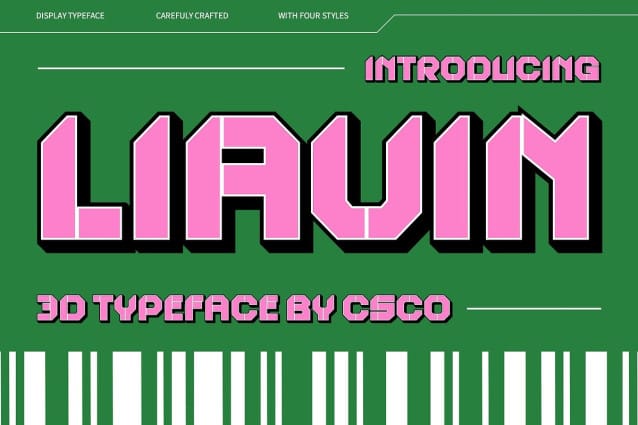
Liavin 3D Font
Liavin 3D Font is a modern display font that embodies futuristic design with its sharp lines and geometric forms. Inspired by cutting-edge technology and innovation, the font’s sleek, angular shapes evoke a sense of the future. The 3D effect adds depth and dimension, transforming each letter into a bold visual element that stands out across various mediums.
Dynamic and Impactful Visual Appeal The 3D effect not only adds dimension but also enhances the font’s bold and dynamic presence, making it highly engaging in any design. Whether used in headlines, posters, or digital media, Liavin 3D ensures a strong visual impact, capturing attention and delivering a futuristic vibe that resonates with modern audiences.
Perfect for Tech and Innovation-Focused Projects Liavin 3D is ideal for technology-related branding, futuristic digital designs, and projects that aim to showcase innovation and forward-thinking concepts. Its sharp, modern lines and dimensional depth make it the perfect choice for designs that demand attention and convey a sense of cutting-edge innovation.